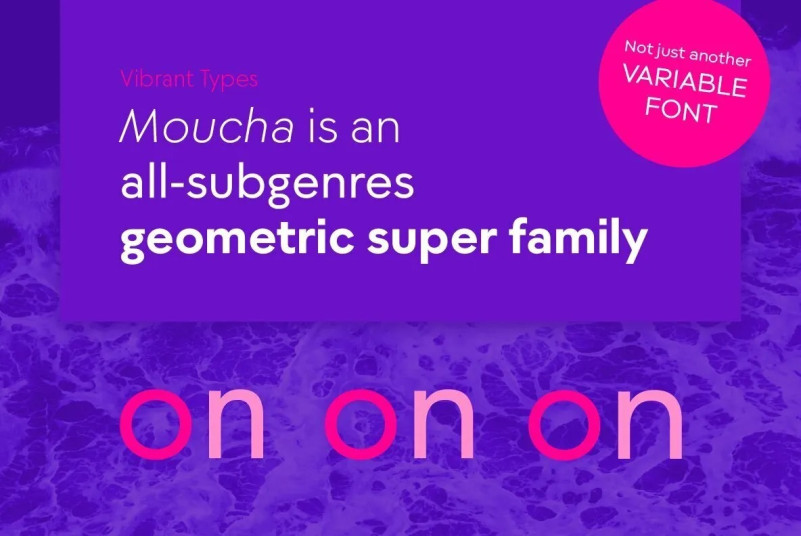
Moucha Font
Moucha Sans Serif Font is a geometric super family offering the proportions of all subgenres. Find a vintage and a modern variant and play with all the sea foam that happens in between. The variable font is your typographic toolbox with the perfect sans-serif match for your favorite serif. It supports not only pan-European but 619 Latin, Cyrillic and Greek languages.